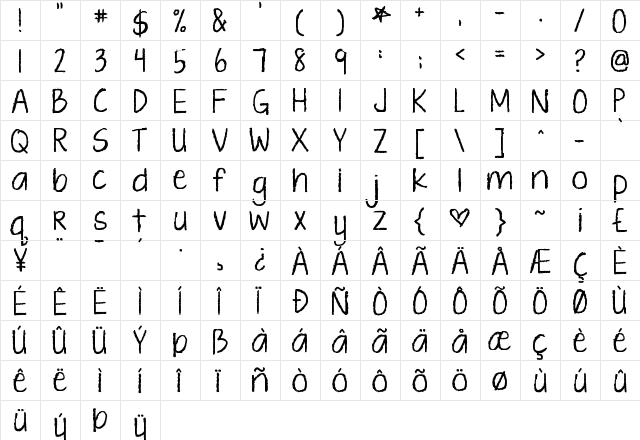
KG Ten Thousand Reasons Regular
| Foundry | Kimberly Geswein |
| Designer | Kimberly Geswein |
Design Context for KG Ten Thousand Reasons Typeface
KG Ten Thousand Reasons is a composed and adaptable typeface that performs quietly and consistently across a wide range of design contexts.